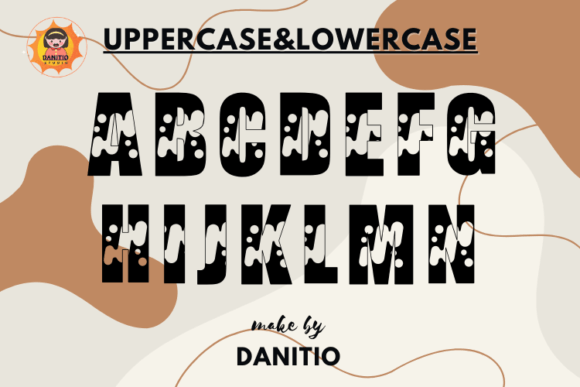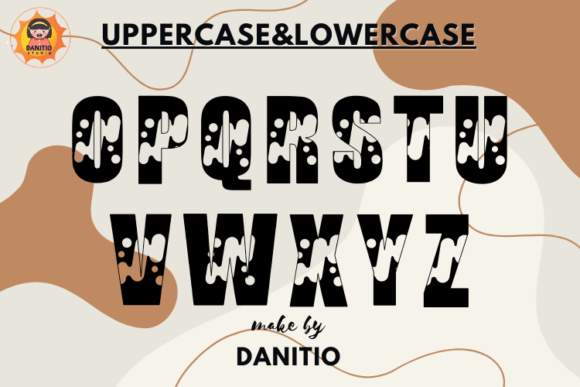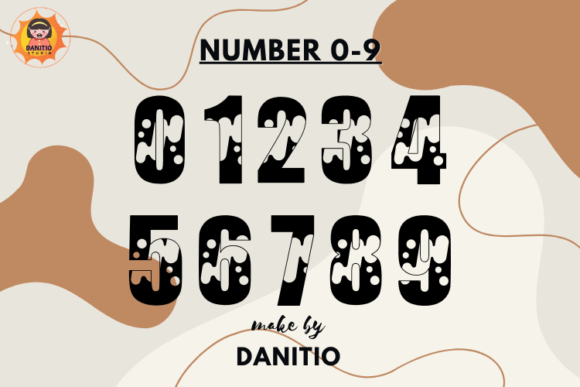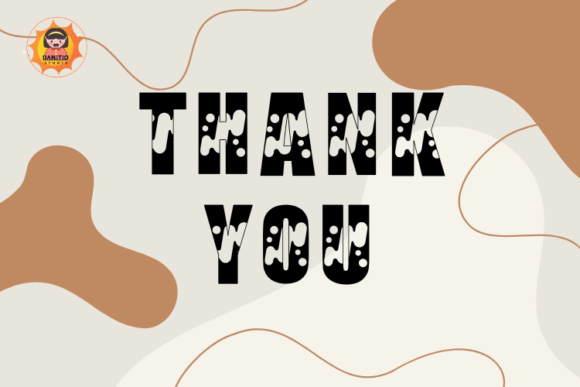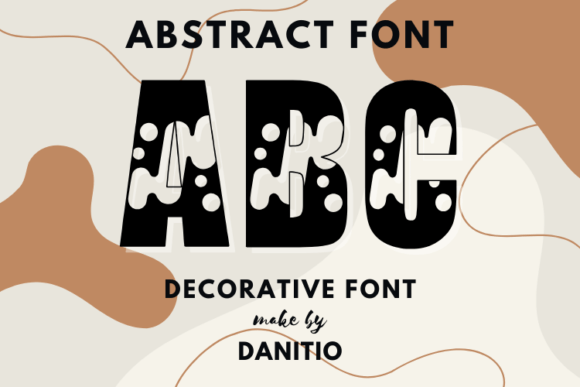
Discover the Charm of Abstract Font: Elevate Your Designs with Cuteness
When it comes to creating visually appealing designs, the right font can make all the difference. If you’re looking for a font that adds a touch of uniqueness and charm to your projects, look no further than Abstract Font. This decorative font is designed to bring a friendly and cute appearance to any design, making it perfect for a wide range of applications.
The Power of Cuteness in Design
Abstract Font is all about emphasizing cuteness in every design. The font’s playful and whimsical style is sure to brighten up any project, from birthday cards to t-shirts, mugs, tote bags, and more. With Abstract Font, you can add a dash of personality to your designs and make them stand out from the crowd.
What Makes Abstract Font So Special?
So, what sets Abstract Font apart from other fonts? Here are just a few features that make it a must-have for designers and crafters:
- Unique and Playful Style: Abstract Font boasts a one-of-a-kind design that’s sure to capture attention. Its playful style is perfect for creating fun and engaging designs.
- Friendly and Cute Appearance: The font’s friendly and cute appearance makes it ideal for designs that require a touch of warmth and approachability.
- Versatile: Abstract Font is versatile and can be used for a wide range of projects, from digital designs to print materials.
Use Abstract Font for a Variety of Projects
Abstract Font is perfect for a variety of projects, including:
- Birthday Cards: Add a touch of cuteness to your birthday cards with Abstract Font. Create custom cards that are sure to delight.
- T-Shirts and Apparel: Use Abstract Font to create eye-catching designs for t-shirts, hoodies, and other apparel.
- Mugs and Drinkware: Add a dash of personality to your mugs and drinkware with Abstract Font.
- Tote Bags and Accessories: Create custom tote bags, stickers, and other accessories with Abstract Font.
Tips for Using Abstract Font Effectively
Here are some tips for using Abstract Font effectively in your designs:
- Pair with Other Fonts: Experiment with pairing Abstract Font with other fonts to create a unique look.
- Use Bright Colors: Abstract Font looks great with bright, bold colors. Experiment with different color combinations to find the perfect look.
- Keep it Simple: Don’t overcomplicate your design. Keep it simple and let Abstract Font be the star of the show.
| Font Name | Abstract Font |
| Author | danita.kukkai |
Abstract Font is a decorative font that’s sure to add a touch of uniqueness and charm to any design. With its friendly and cute appearance, this font is perfect for a wide range of projects, from birthday cards to t-shirts and more. Whether you’re a designer or crafter, Abstract Font is a must-have in your font collection.